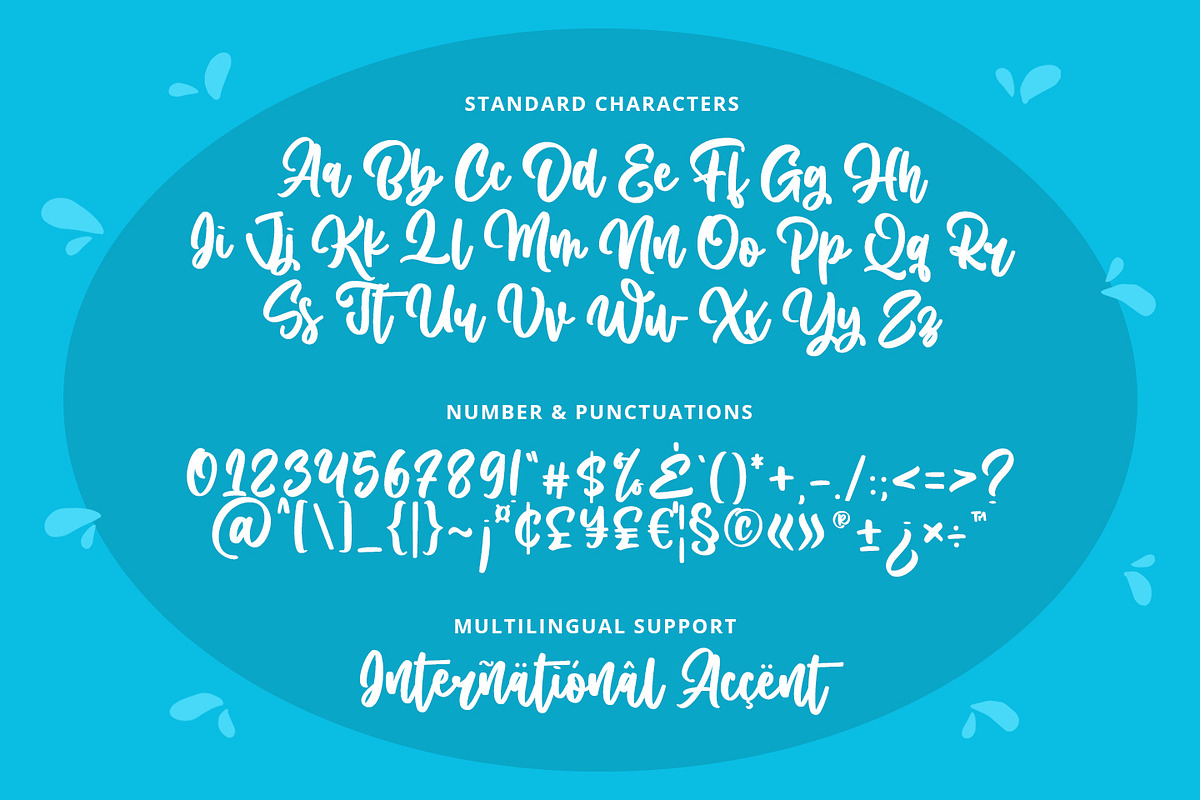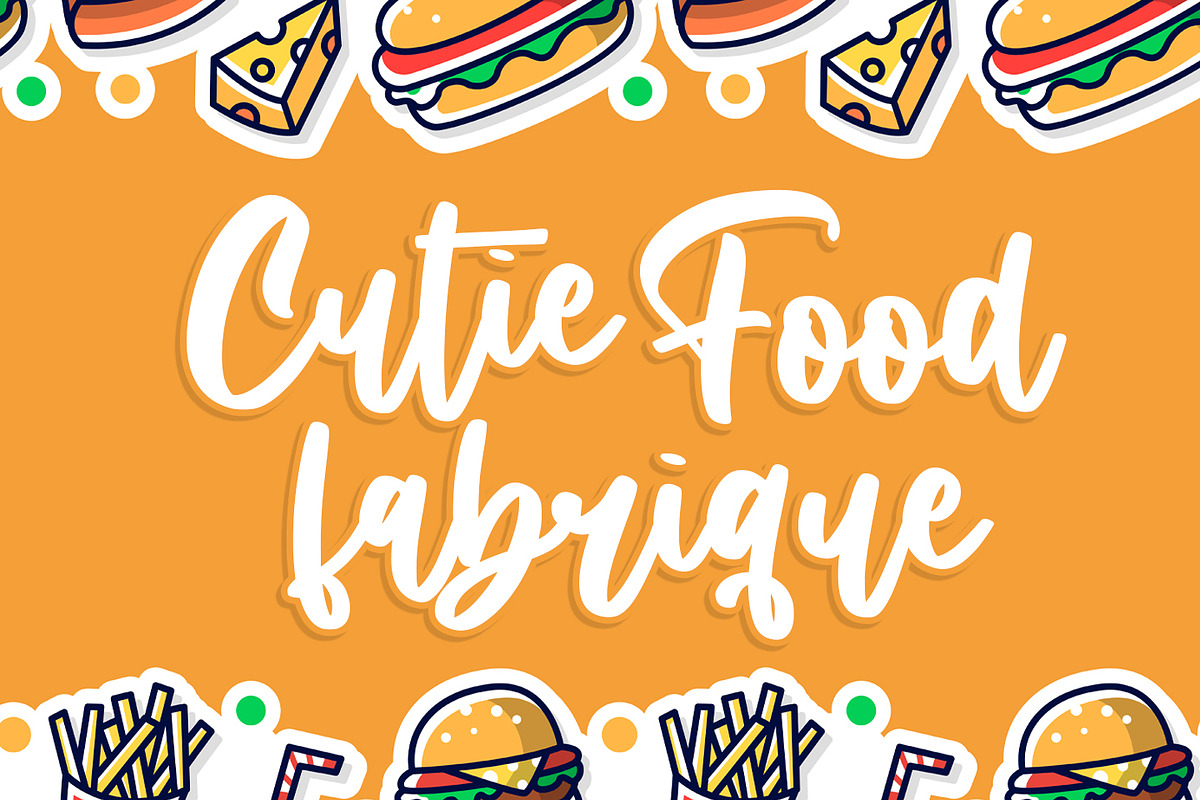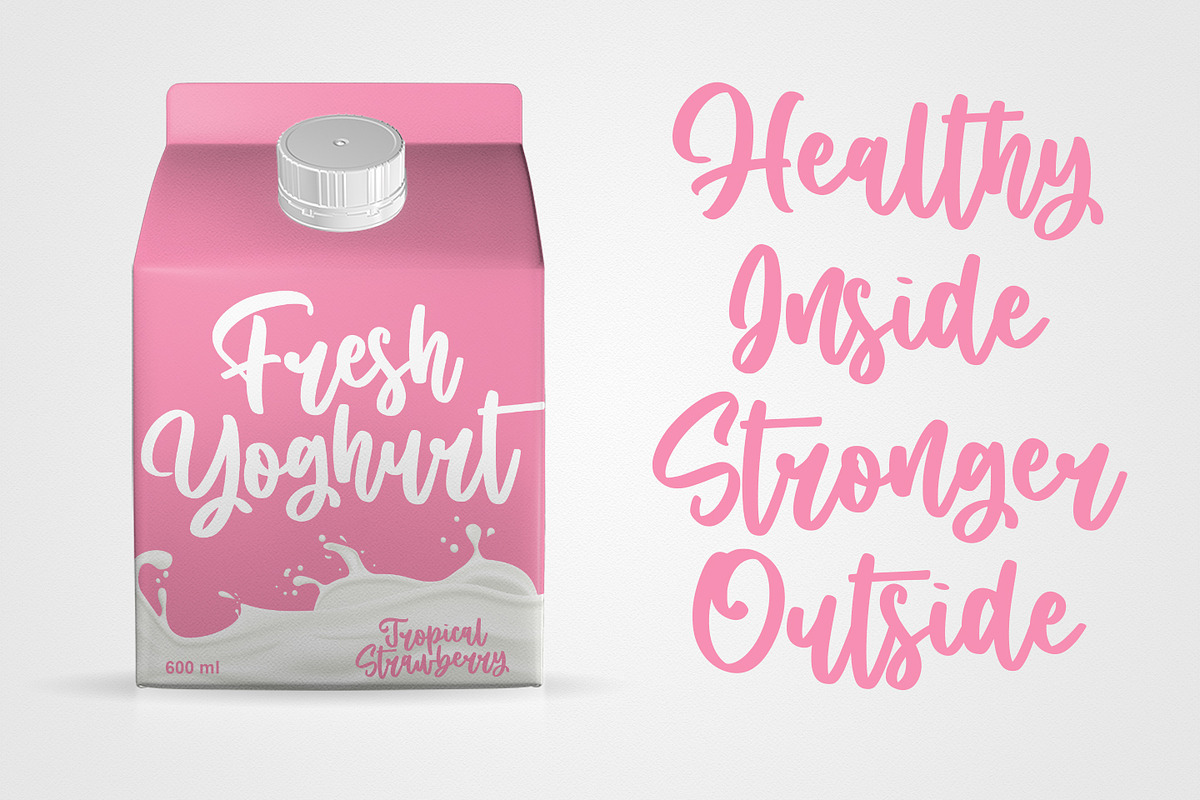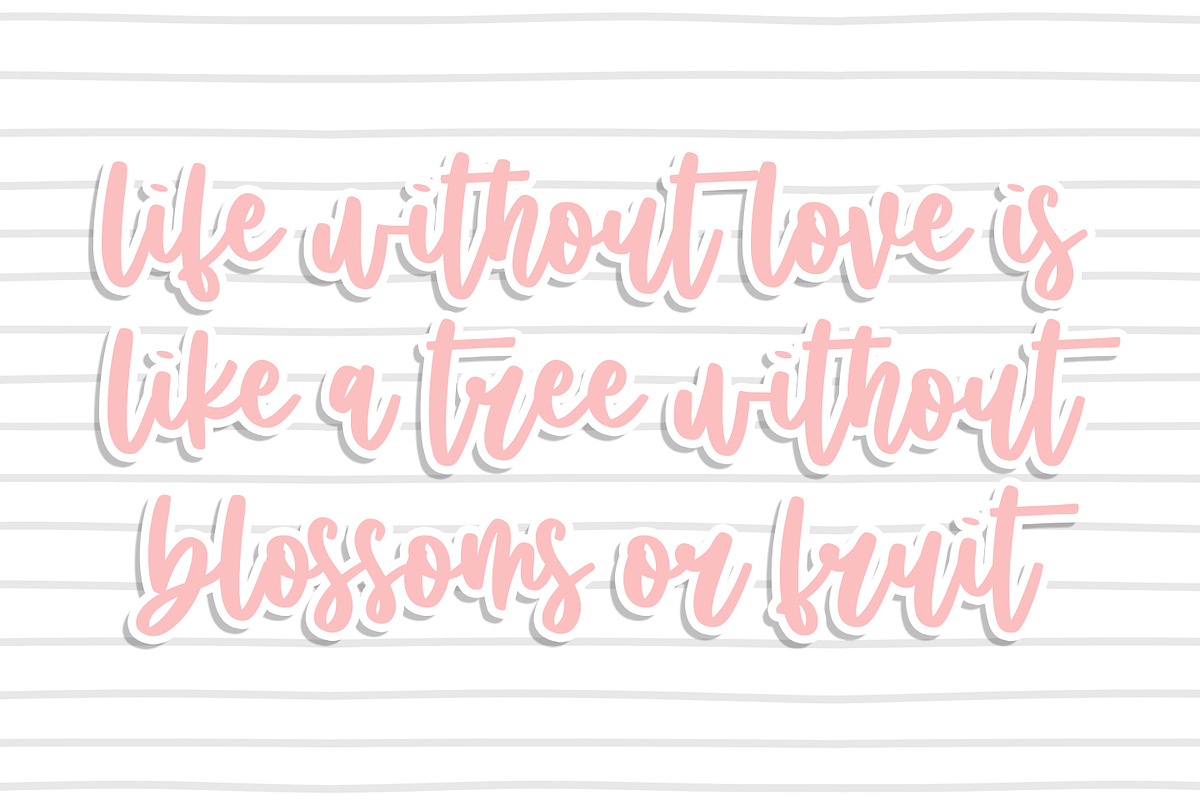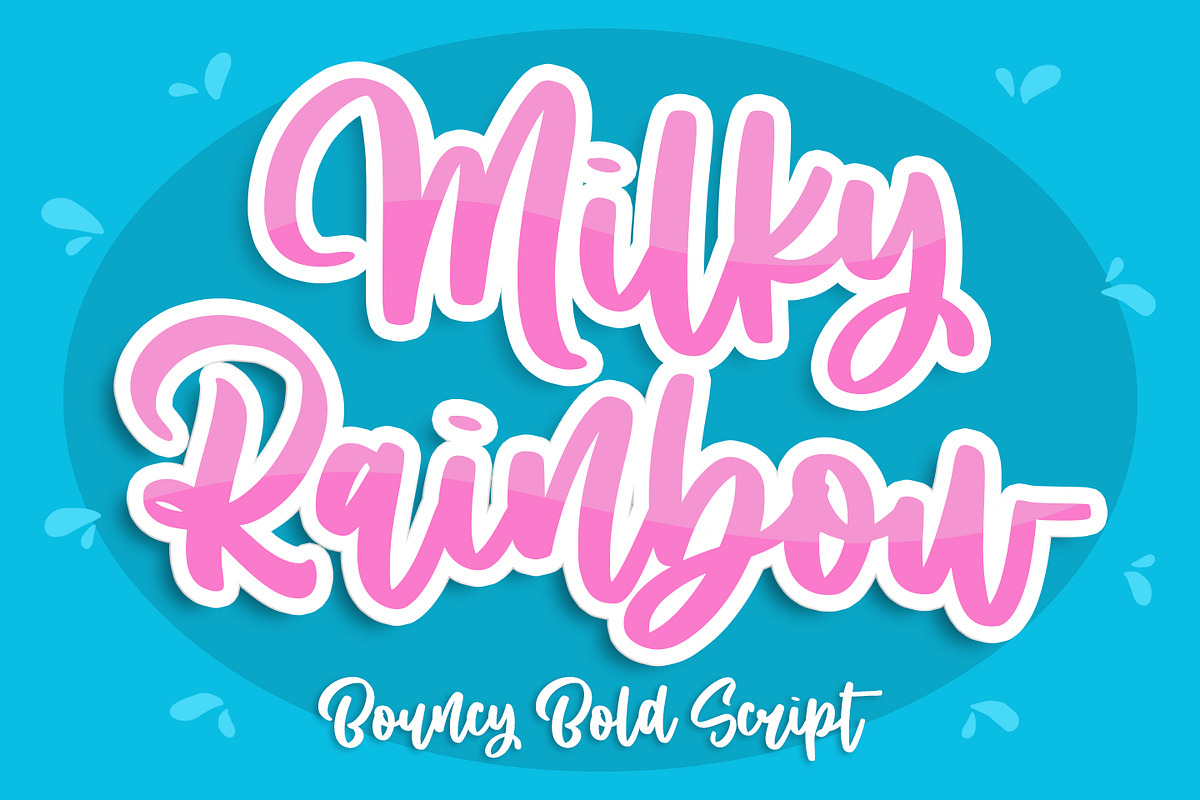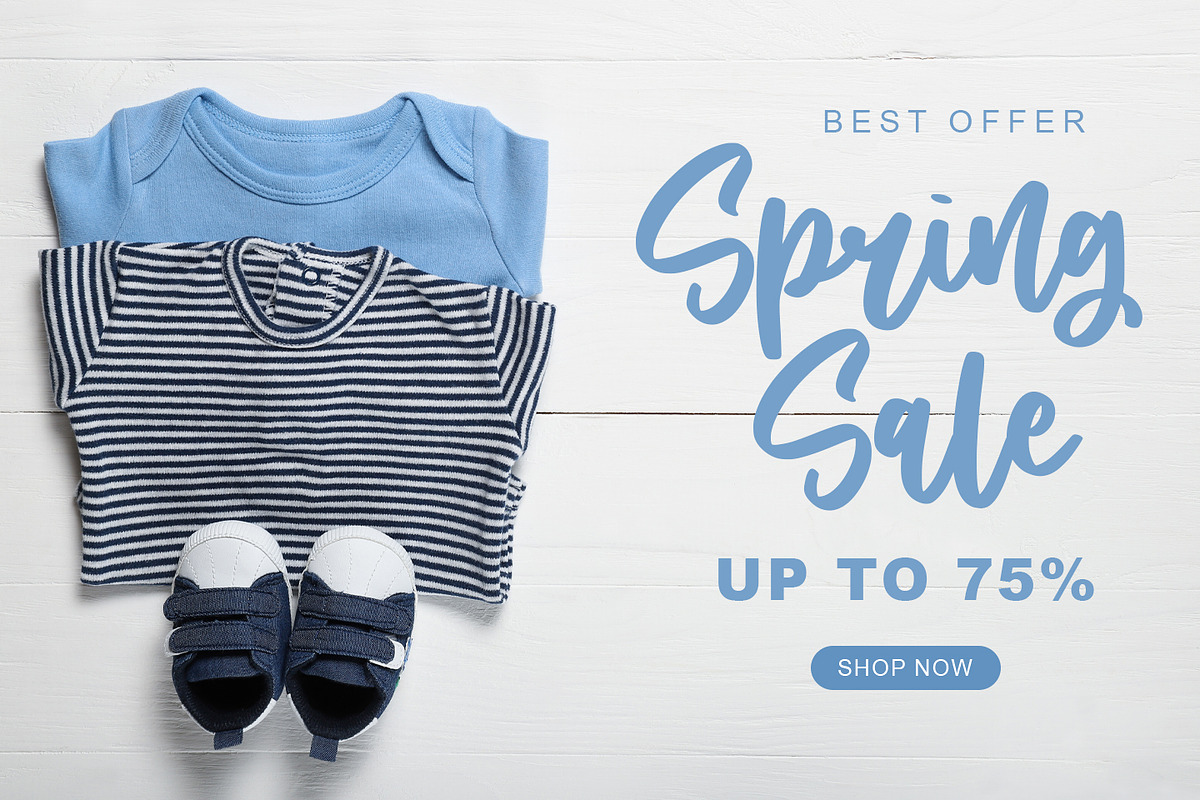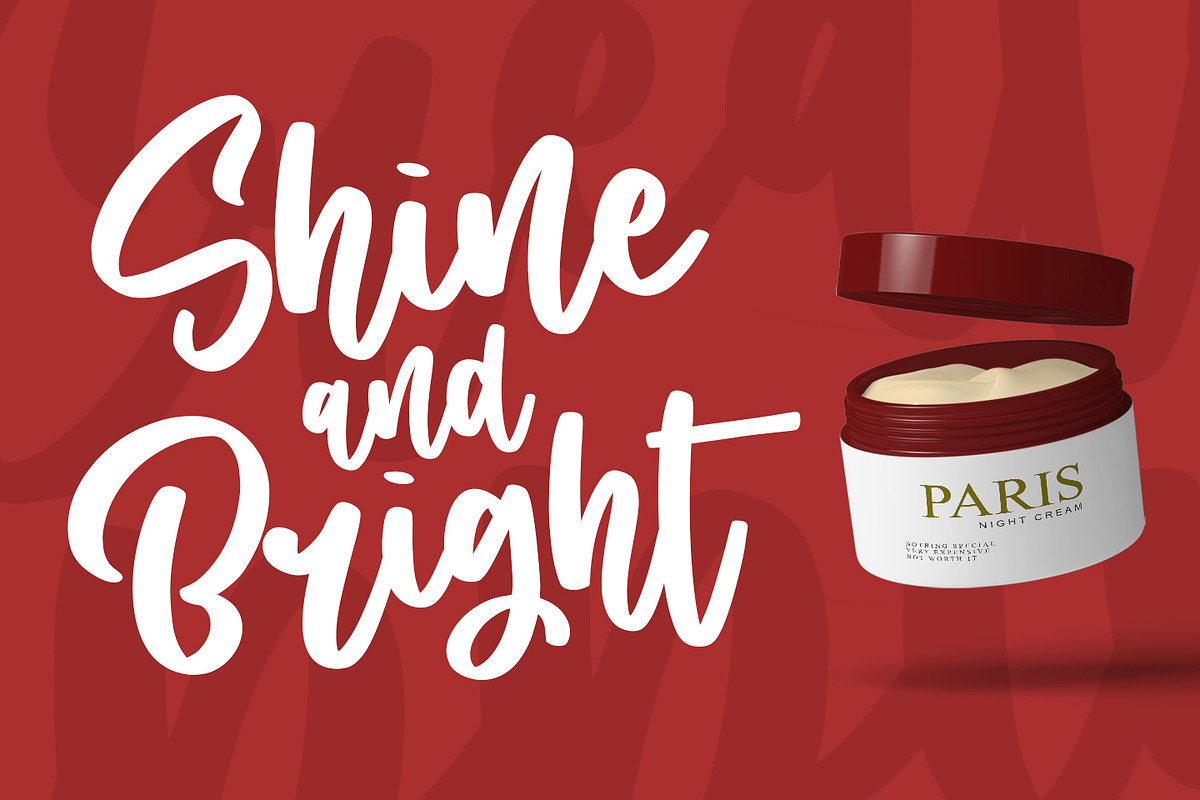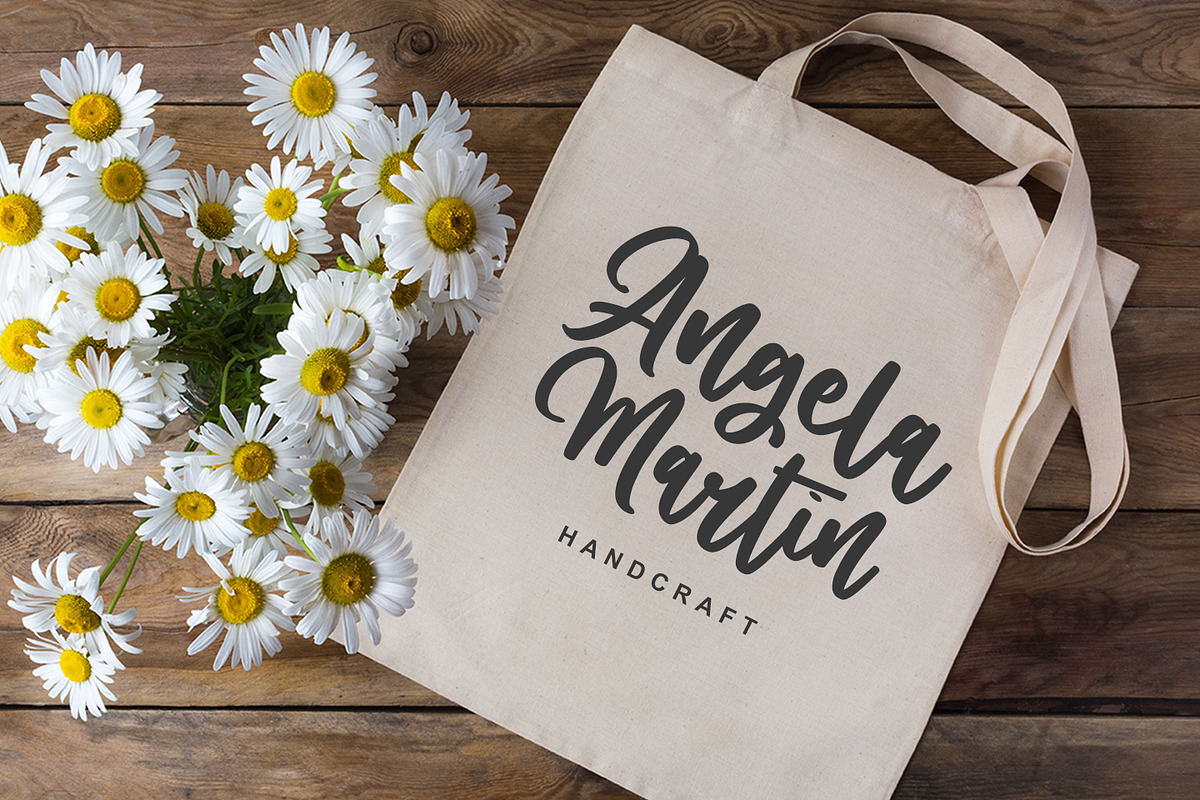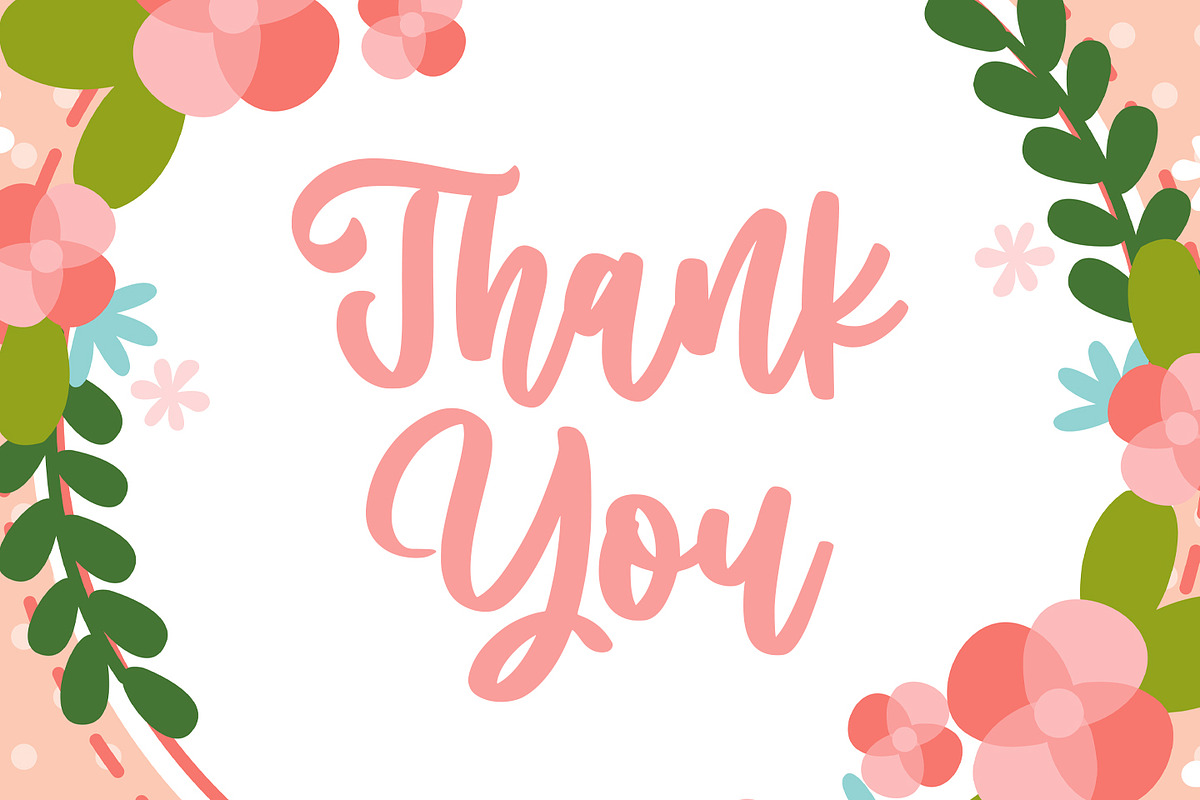
Milky Rainbow
introducing
MILKY RAINBOW - a Bouncy Handwritten Font -
MILKY RAINBOW is natural handwritten font. come with a bold style, it is very eye-catching.
It is great for packaging, branding, quotes, cards, banner, books, cutting, silhouettes, social media content, and anything of your craft project.
I created some ligatures to make it look so natural.